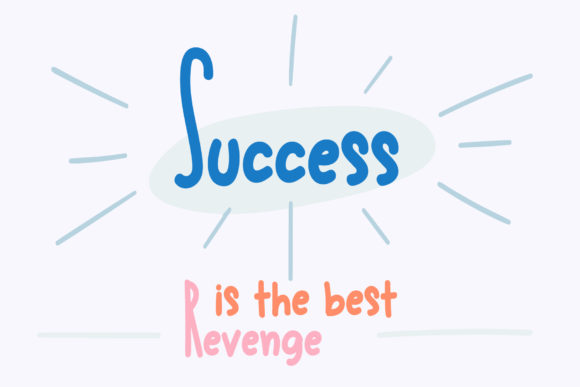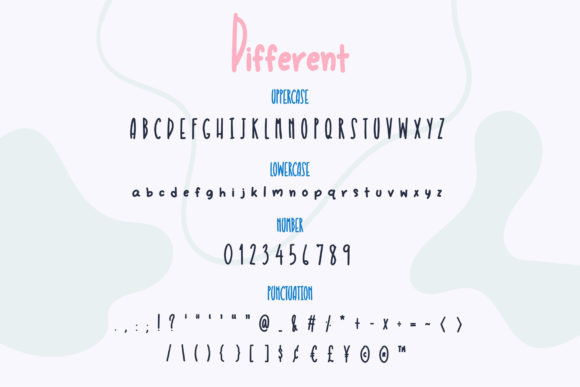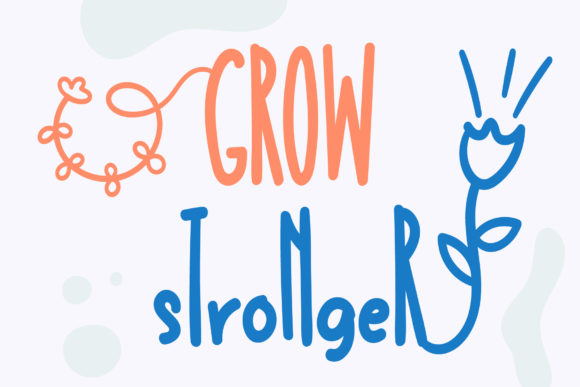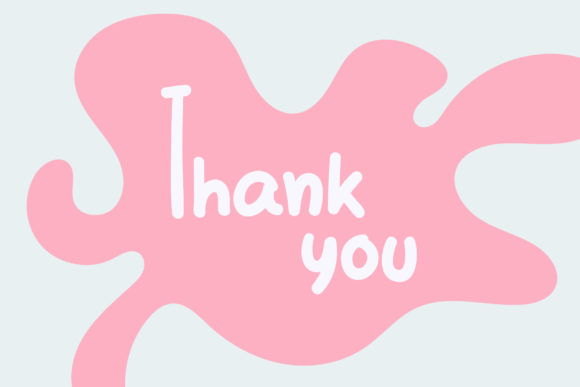
Discover the Charm of Different Font: A Sweet and Friendly Handwritten Delight
Are you tired of using the same old fonts in your designs? Look no further! Introducing Different Font, a sweet and friendly handwritten font that’s sure to add a touch of personality to your creations. With its natural and unique style, Different Font is incredibly versatile and can be used in a wide range of designs, from playful crafts to elegant branding materials.
Handwritten fonts have a way of adding a personal touch to any design. They evoke a sense of warmth and friendliness, making them perfect for projects that require a more approachable and relatable feel. Different Font is no exception. Its hand-crafted look and feel make it an excellent choice for designers and crafters looking to add a human touch to their work.
What Makes Different Font Special?
So, what sets Different Font apart from other handwritten fonts? Here are just a few reasons why this font is a standout:
- Natural and Unique Style: Different Font has a one-of-a-kind look that’s both natural and effortless. Its unique style makes it perfect for designs that require a touch of personality and whimsy.
- Versatility: Whether you’re working on a playful craft project or a professional branding campaign, Different Font is incredibly versatile and can adapt to any design style.
- Easy to Read: Despite its handwritten nature, Different Font is surprisingly easy to read, making it perfect for body text and longer blocks of content.
Use Cases for Different Font
So, what can you use Different Font for? The possibilities are endless! Here are just a few ideas to get you started:
- Crafting and Scrapbooking: Add a personal touch to your scrapbook pages, journal entries, and craft projects with Different Font.
- Branding and Packaging: Use Different Font to add a touch of personality to your branding materials, such as business cards, brochures, and product packaging.
- Social Media Graphics: Make your social media graphics stand out with Different Font’s unique and playful style.
- Wedding and Party Decor: Use Different Font to create beautiful and personalized wedding invitations, party decorations, and more.
Tips for Using Different Font
Here are a few tips for getting the most out of Different Font:
- Experiment with Colors: Different Font looks great in a variety of colors, so don’t be afraid to experiment and find the perfect hue for your design.
- Mix and Match: Combine Different Font with other fonts to create a unique and visually interesting design.
- Play with Size and Style: Different Font looks great in a range of sizes and styles, so don’t be afraid to get creative and try out different variations.
In conclusion, Different Font is a sweet and friendly handwritten font that’s perfect for designers and crafters looking to add a touch of personality to their work. With its natural and unique style, versatility, and ease of use, Different Font is sure to become a favorite in your design toolkit. So why wait? Download Different Font today and start creating something amazing!